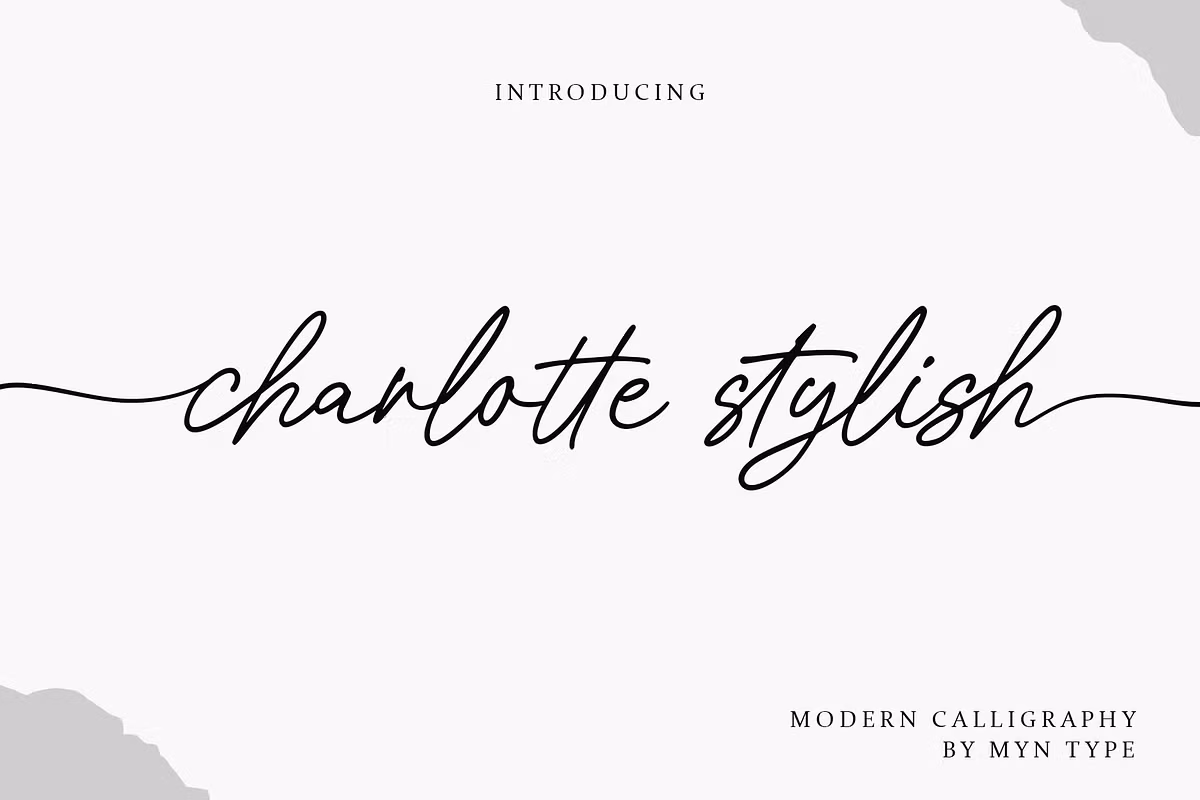
Charlotte Stylish Modern Calligraphy Free Download
Charlotte Stylish Modern Calligraphy Free Download is a graceful and contemporary script font that brings elegance and charm to every design. Please note, you are required to purchase this font for commercial use. It is available for free download for testing and personal projects only.
With its fluid strokes, delicate curves, and luxurious vibe, Charlotte is perfect for wedding invitations, logos, branding, feminine packaging, greeting cards, and high-end social media content. It beautifully balances modern sophistication with timeless calligraphic style.
By choosing Charlotte Stylish Modern Calligraphy Free Download, you're getting access to a professionally crafted font that installs effortlessly and works smoothly across all major design platforms. Whether you’re designing for romance, fashion, or lifestyle, Charlotte adds a personal and elegant touch to any creative project.